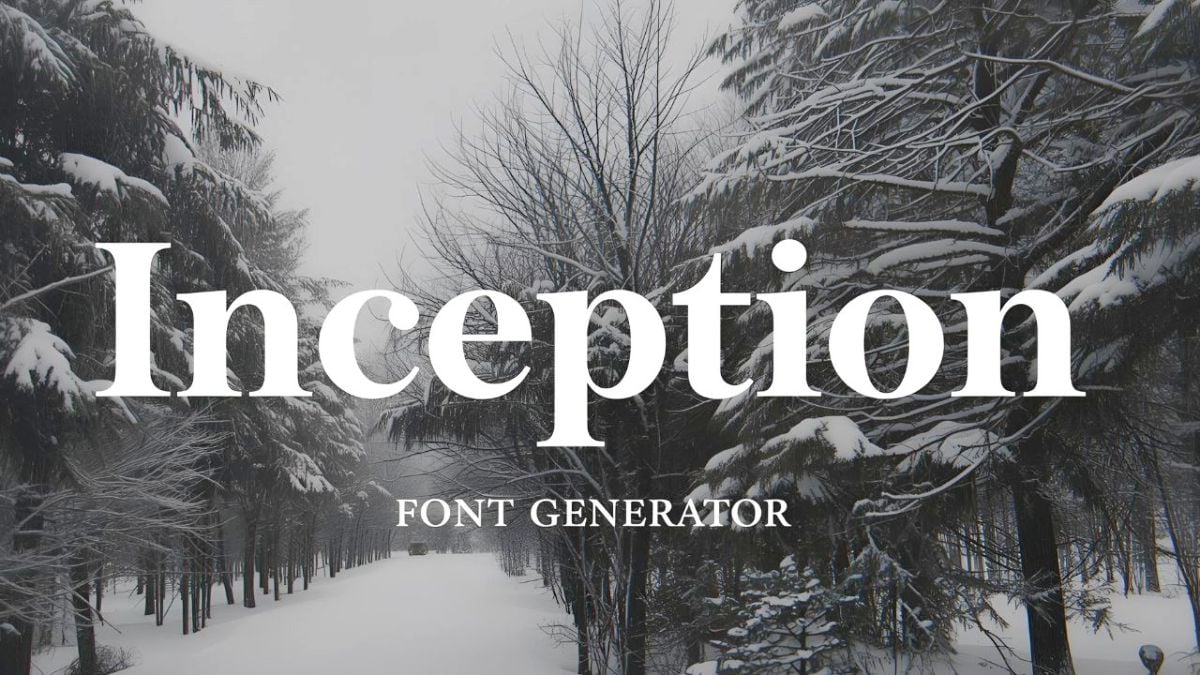
Get the subconscious font – the perfect dream world typography for mind-bending designs. Perfect for Inception fans and subconscious-themed content.
Inception font captures the subconscious essence of dream worlds and mind-bending architecture! This Inception typography brings authentic subconscious character to your text designs. Our Inception Font Generator lets you create dream text using the authentic Inception font. Perfect for mind-bending designs, subconscious projects, and Inception-themed content.
Experience the architecture of dreams with our subconscious font that adds mind-bending energy and dream architecture to your typography!